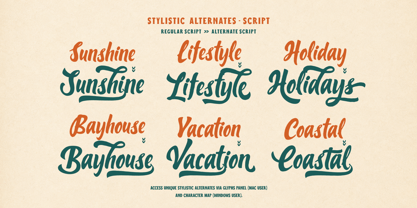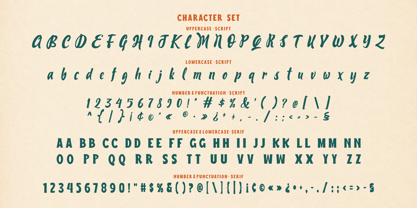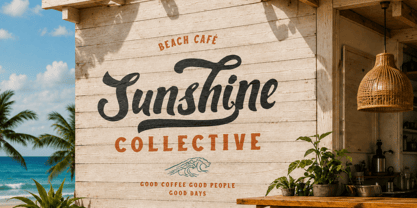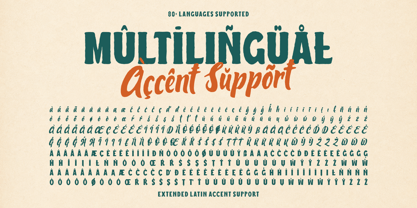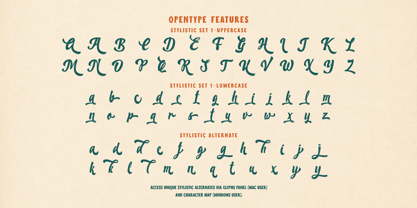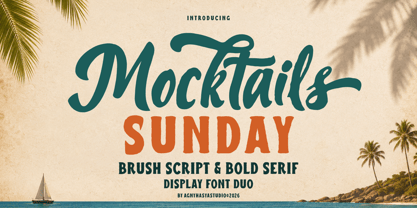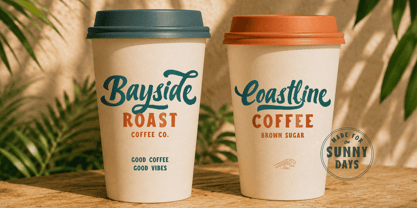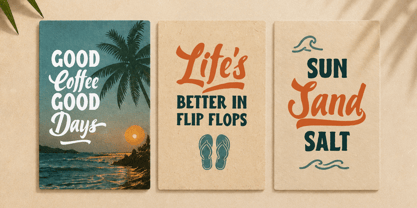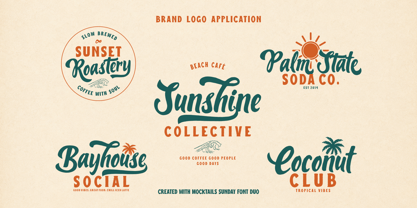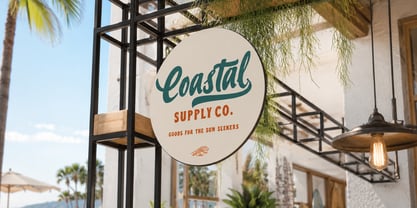
Mocktails Sunday
by Agny Hasya Studio
The Mocktails Sunday Font Family was designed by Firman Maulana and published by Agny Hasya Studio. Mocktails Sunday contains 2 styles and family package options.
Looking for a Summer Font Duo for Beach Café Logos, Drink Labels, and Coastal Branding?
Meet Mocktails Sunday, a sunny handcrafted font duo made for tropical logos, beverage packaging, summer merchandise, café branding, and coastal lifestyle visuals.
With a flowing brush script and bold serif display style, Mocktails Sunday gives your typography a warm, relaxed, and beach-ready personality.
Perfect for designs that need to feel fresh, sunny, handcrafted, tropical, and full of coastal charm.
Best Used For
• Beach café logos and coastal branding
• Tropical drink labels and beverage packaging
• Coffee shop branding and restaurant menus
• Summer merchandise and apparel graphics
• Tote bag designs and sticker packs
• Coastal signage and vacation branding
• Surf-inspired lifestyle brands
• Social media graphics with summer vibes
• Boutique packaging and handmade products
• Beach party invitations and event visuals
• Modern tropical brand identity
What Makes It Stand Out
Mocktails Sunday combines two complementary styles in one ready-made font pairing: an expressive brush script and a sturdy handmade serif.
The brush script adds soft, breezy, hand-lettered personality, while the bold serif brings structure, readability, and strong display impact for headlines, badges, labels, and packaging layouts.
This makes Mocktails Sunday a great choice for designers, café owners, beverage brands, apparel creators, Canva creators, and creative studios that need a tropical font duo with a polished commercial look.
Font Features
• Sunny handcrafted script and serif font duo
• Flowing brush script style
• Bold serif display letterforms
• Stylistic alternates and ligatures
• Swashes for expressive lettering
• Uppercase and lowercase letters
• Numerals and punctuation
• OpenType features
• Extended Latin accent support
Bring fresh coastal charm to your next logo, drink label, packaging, menu, signage, or summer merchandise project with Mocktails Sunday.
Designers: Firman Maulana
Foundry: Agny Hasya Studio